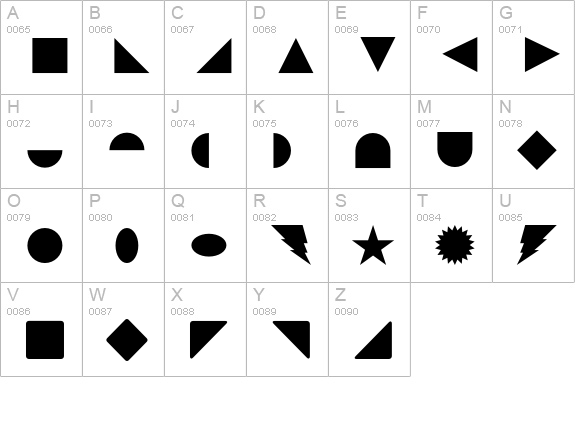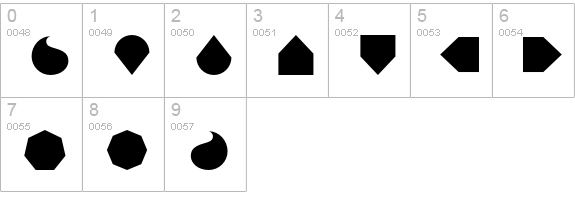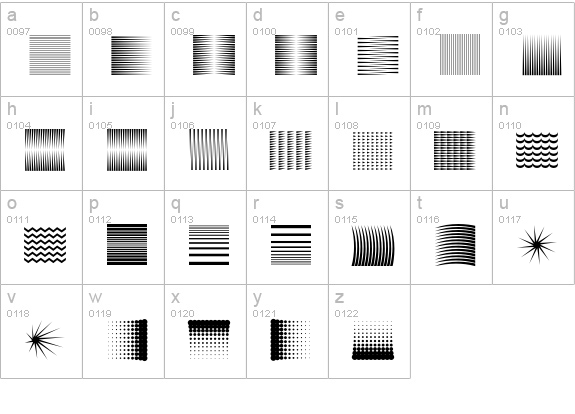
InstantLogo Font Details
Introducing InstantLogo font, a stylish and versatile typeface perfect for all your design needs. With its sleek and modern design, InstantLogo font adds a touch of elegance and professionalism to any project. Whether you're creating a logo, a website, or any other creative endeavor, this font is sure to make a lasting impression. What sets InstantLogo font apart is not only its stunning aesthetics but also its accessibility. It is available for free download at FontsMarket.com, making it easily accessible to designers and enthusiasts alike. Say goodbye to expensive font licenses and hello to the freedom of creativity without constraints. Featuring a wide range of characters, InstantLogo font offers endless possibilities for customization. Its clean lines and well-defined shapes make it ideal for both small and large sizes, ensuring legibility and readability in any context. Whether you're designing for print or digital platforms, InstantLogo font adapts seamlessly, guaranteeing a polished and professional outcome. The versatility of InstantLogo font extends beyond its visual appeal. Its compatibility with various design software and applications makes it a go-to choice for designers of all levels. From Adobe Photoshop to Illustrator, InstantLogo font seamlessly integrates into your workflow, allowing you to effortlessly bring your creative visions to life. In addition to its aesthetic and technical advantages, InstantLogo font also comes with extensive language support, ensuring that your message can be conveyed in any tongue. With its multilingual capabilities, this font is perfect for global brands and businesses looking to make an impact on an international scale. In conclusion, InstantLogo font is a must-have for any designer or creative individual seeking to elevate their projects to new heights. Its sleek design, accessibility, and versatility make it a powerful tool in your creative arsenal. Don't miss out on this incredible opportunity to enhance your designs with InstantLogo font - available for free download at FontsMarket.com. Unleash your creativity and create stunning visuals that leave a lasting impression.